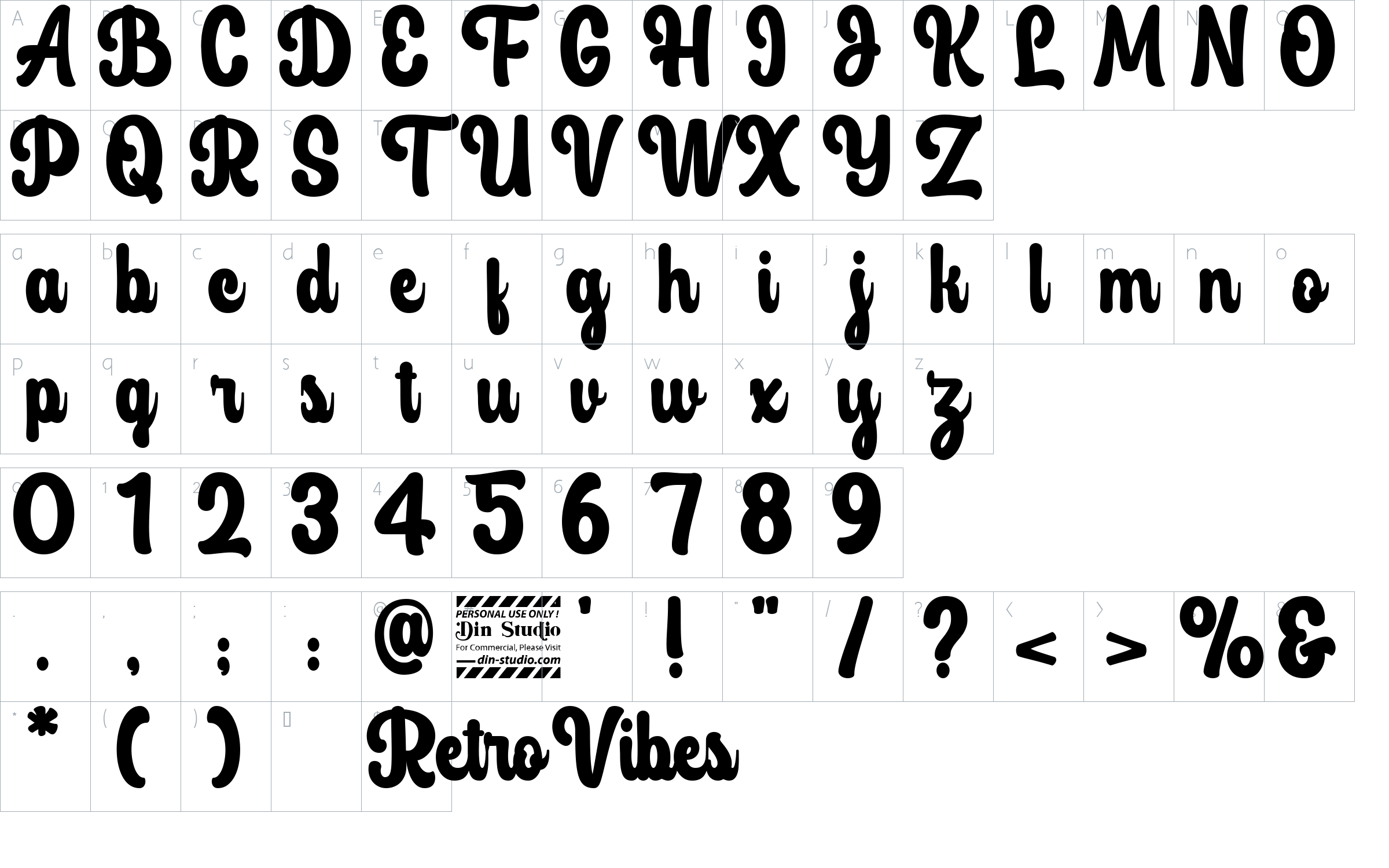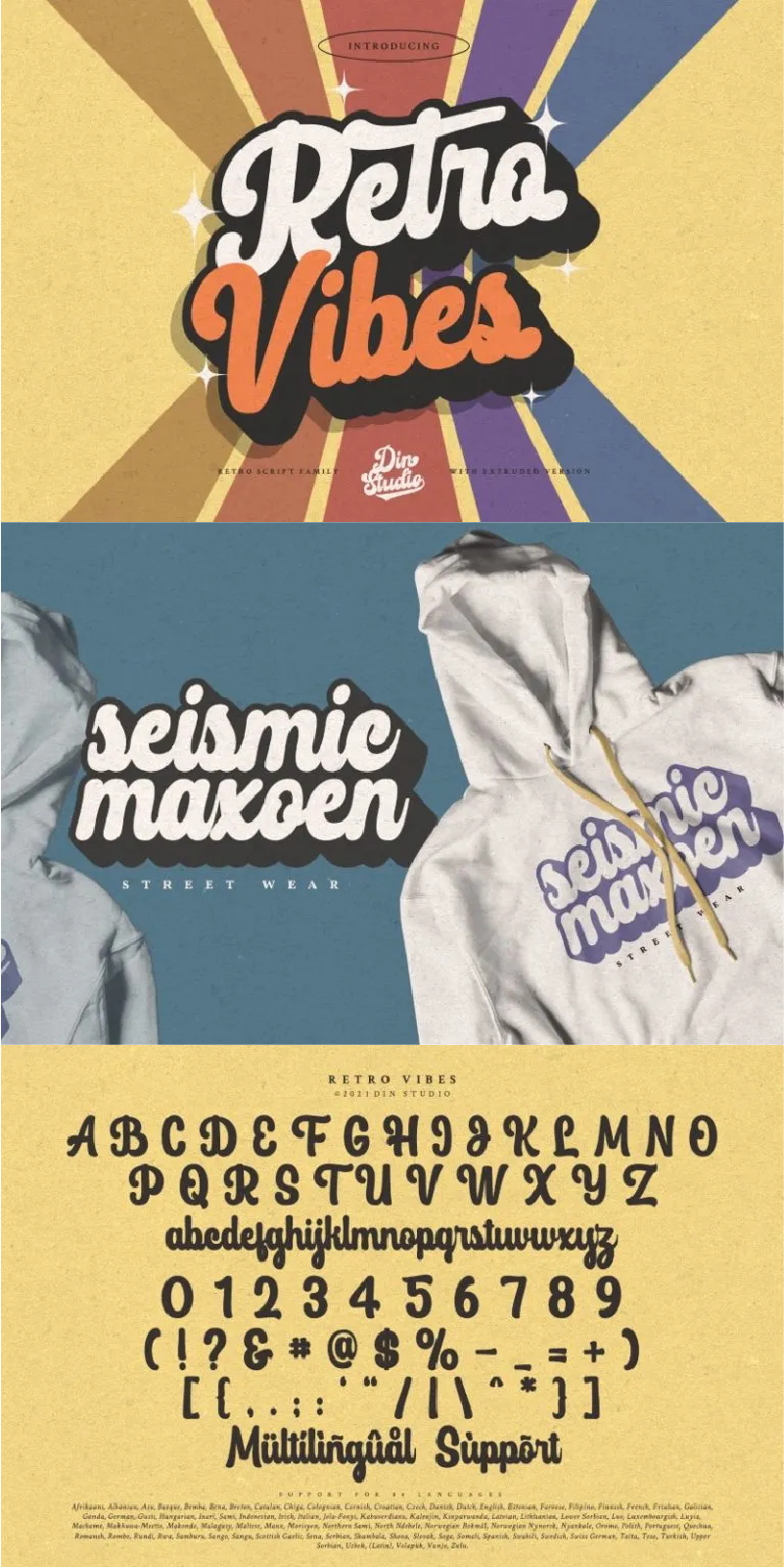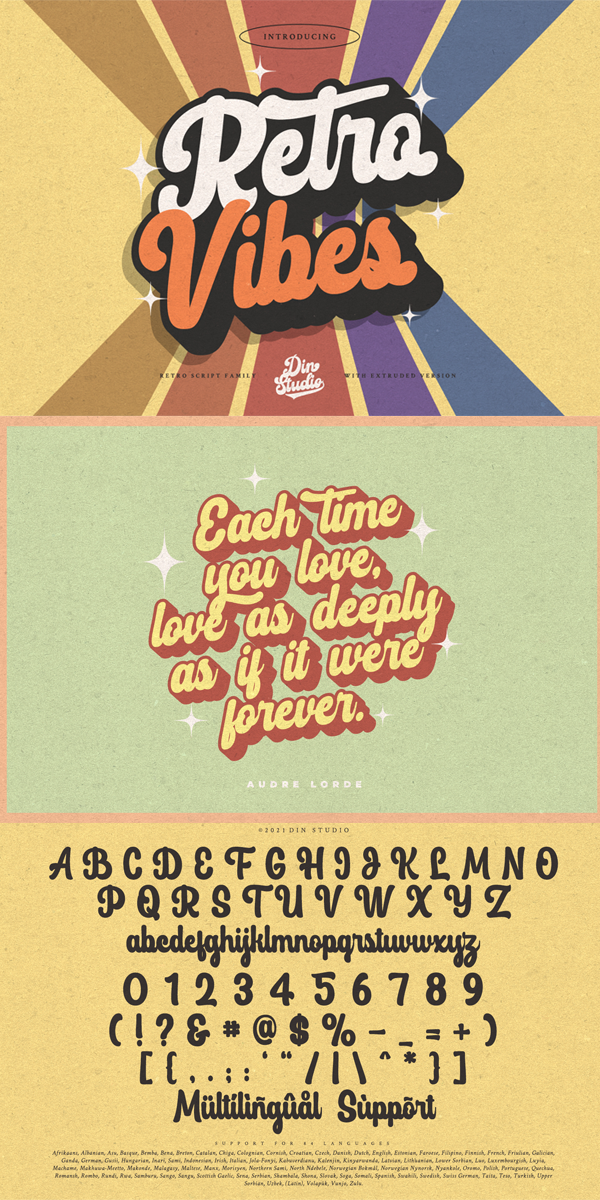
Retro Vibes Font
About Retro Vibes
A Script Font, Retro Vibes, is a bubble-styled, handcrafted font inspired by designs and illustrations from the 1960s. It’s a fine-looking font, brought to life by a splendidly scratchy halftone gradient that aims to bring out retro vibes. This font comes in regular and italic versions. The font makes your logos, business cards, and other projects a unique vintage look.
Retro Vibes includes Multilingual Supports to make your brandings reach a global audience. See the previews above to get some inspiration on how you can use them. Happy Designing!